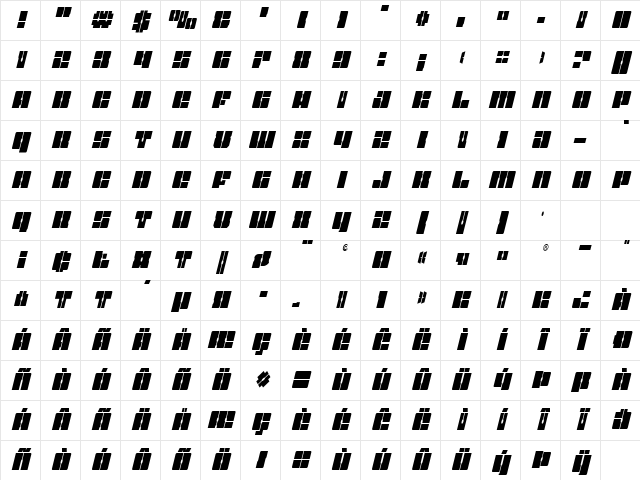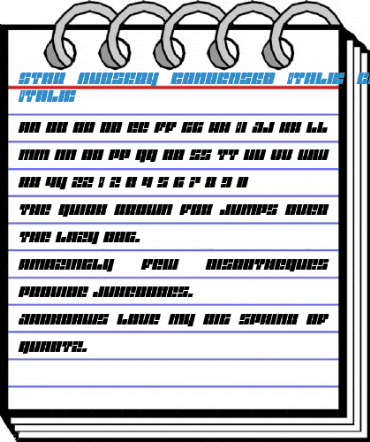
Complete Star Nursery Condensed Italic glyph index. Displaying only characters natively supported by Star Nursery Condensed Italic font.
Star Nursery Condensed Italic is a composed and adaptable typeface that performs quietly and consistently across a wide range of design contexts. The slanted form adds forward momentum and visual energy. Its narrow stance lets it pack a punch even in space-constrained designs.